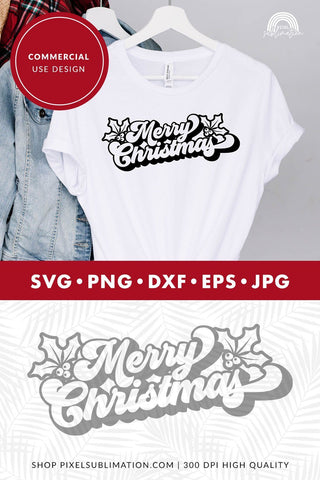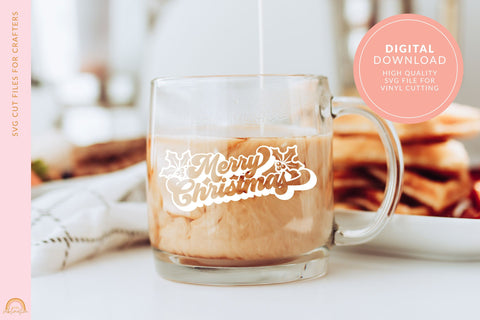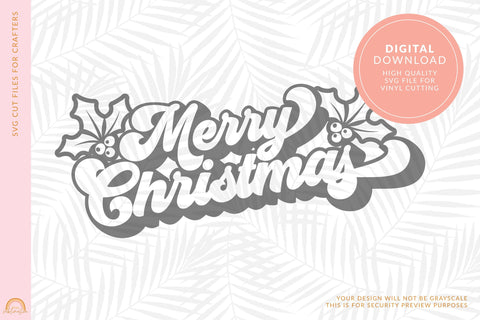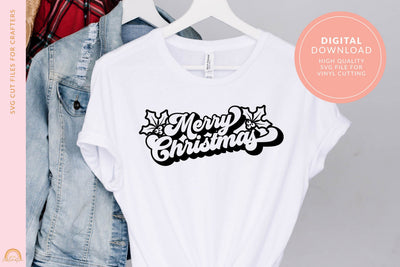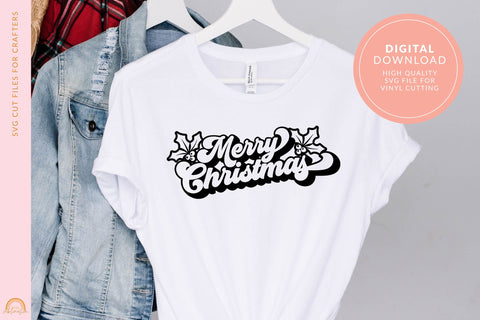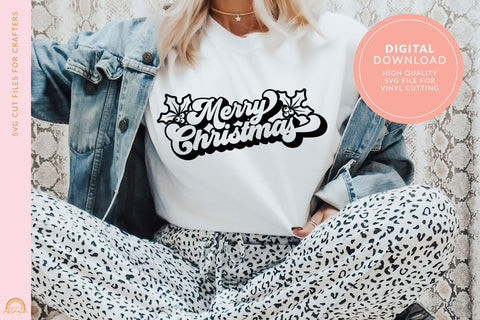
Christmas SVG File With Merry Christmas HM
This cute, Christmas SVG file is a modern SVG design that features a fun retro font that says Merry Christmas with some holly to make it extra classy.